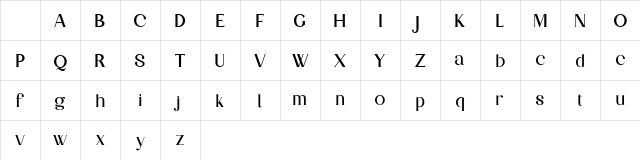
Complete PartakeDemo Regular glyph index. Displaying only characters natively supported by PartakeDemo Regular font.
PartakeDemo is a composed and adaptable typeface that performs quietly and consistently across a wide range of design contexts.